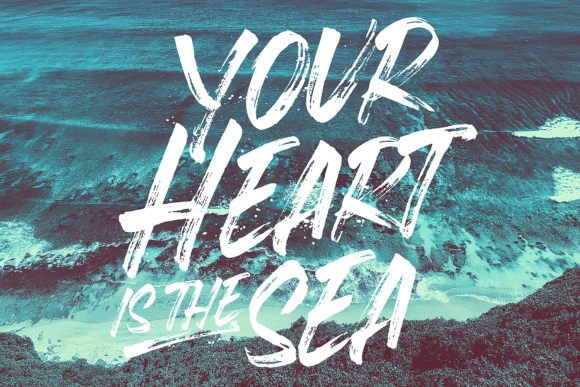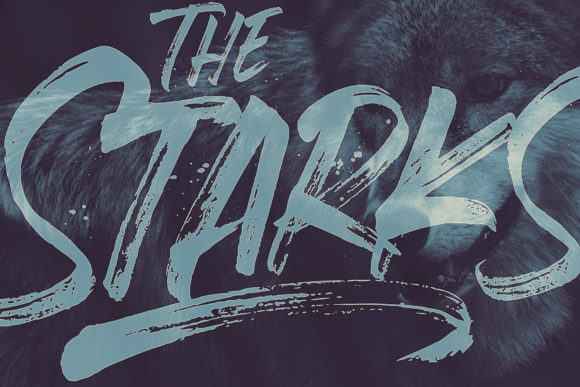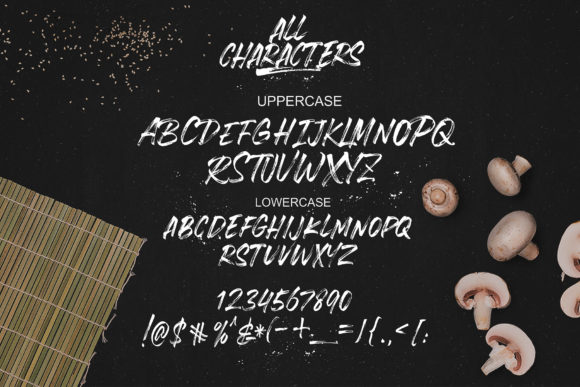
Introduction to Seblaque Font
Seblaque is an amazing all-caps brushed font with a bold twist.
It will effortlessly add a contemporary charm to any design project .
Why Choose Seblaque Font?
Seblaque Font offers exceptional quality and versatility, making it a valuable addition to your design toolkit. Whether you’re creating for personal projects or commercial use, Seblaque Font delivers professional results.